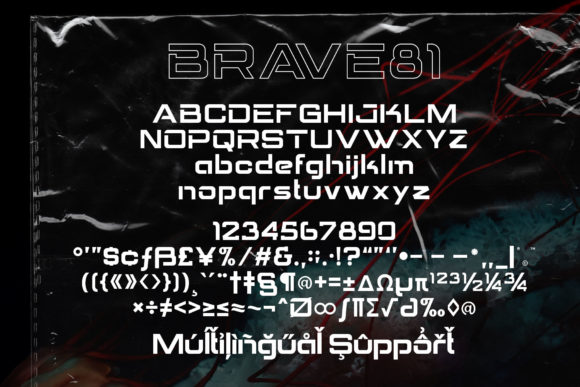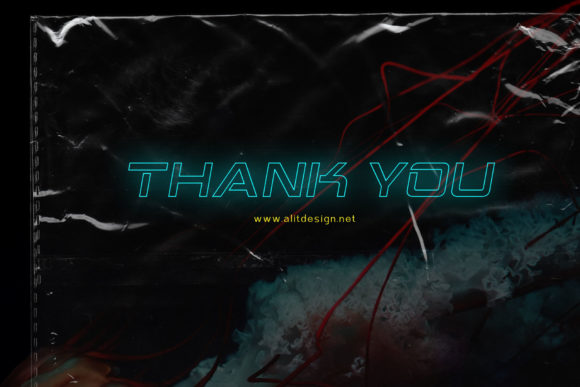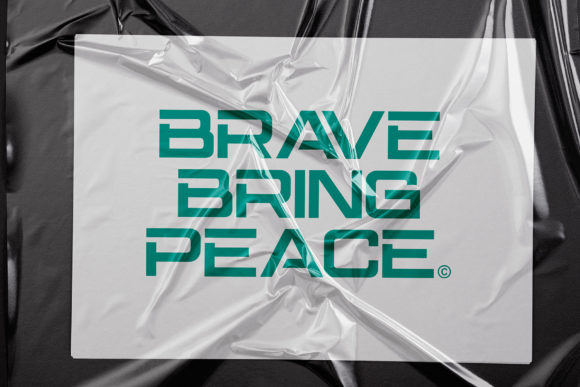
Brave Eighty One Font
Brave Eighty one is a unique display font inspired by futuristic and space-like design concepts.Masterfully designed to become a true favorite, this font has the potential to bring each of your creative ideas to the highest level!